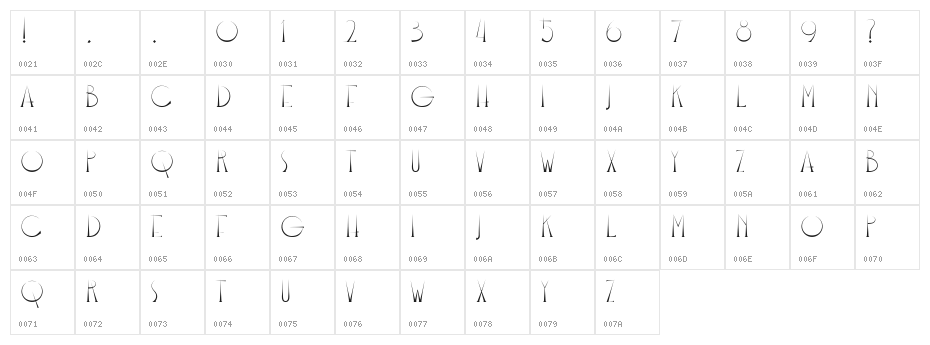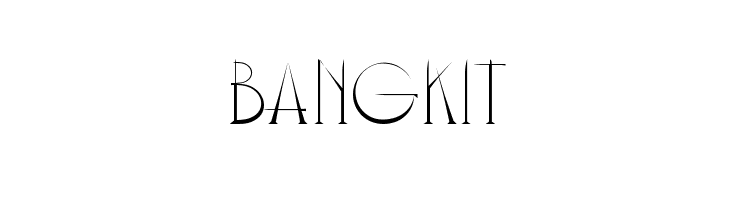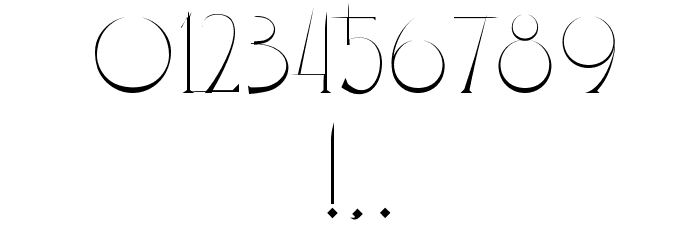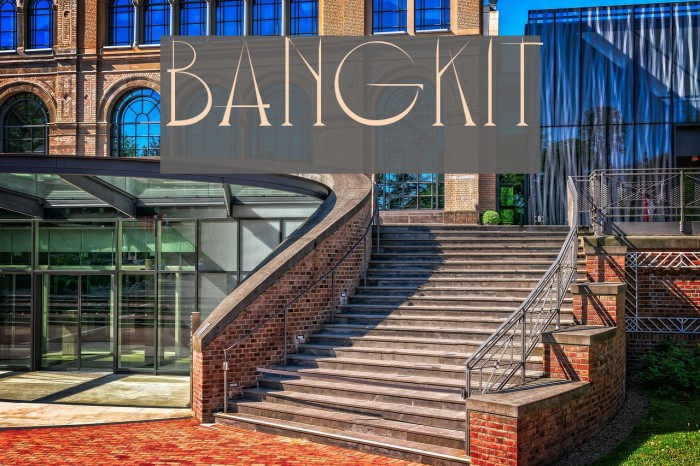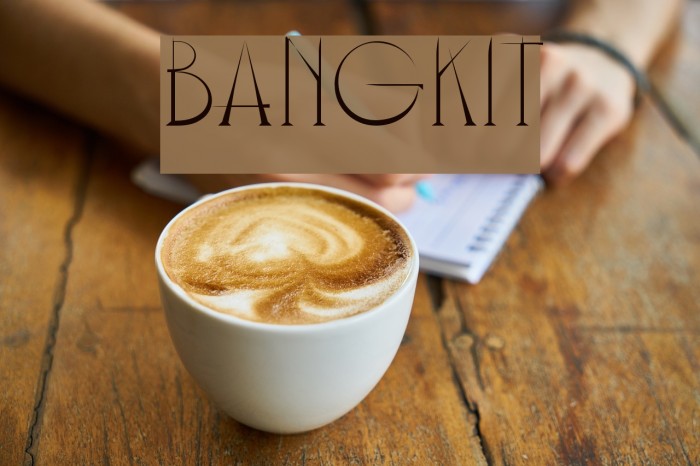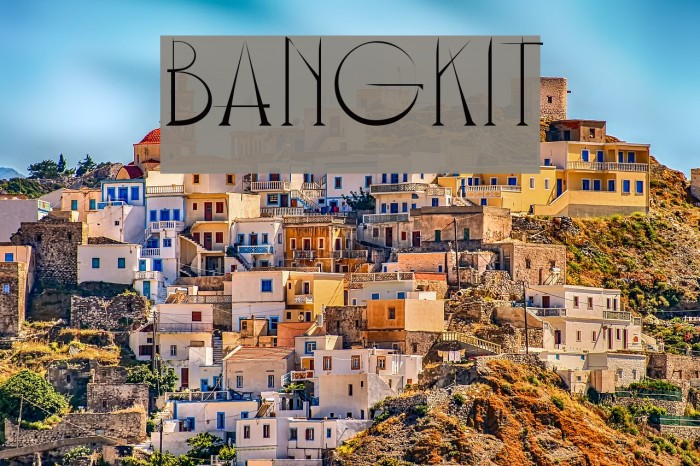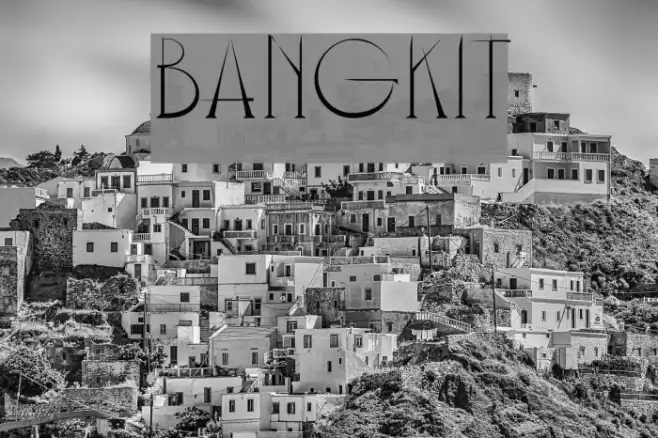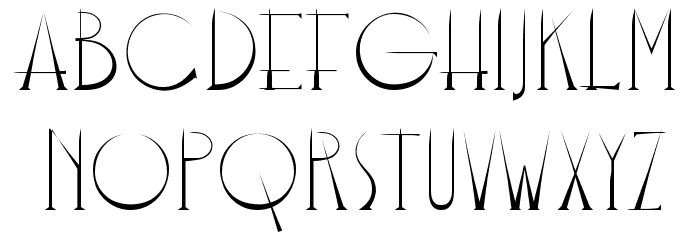
Bangkit Font
Bangkit Description
This font features a unique and artistic design with a modern flair. The characters are elegantly elongated with a mix of thin and thick strokes, creating a high contrast that adds a dramatic effect. The uppercase letters have a distinct geometric style, while the lowercase letters maintain a consistent aesthetic. The numerals are designed to complement the letters, with a similar balance of curves and straight lines. Special characters are included, maintaining the overall style. This font is visually striking and suitable for creative and bold design projects.
| Overall Style | Modern, Artistic |
| Proposed Projects | Ideal for branding, logos, posters, and editorial design where a modern and artistic touch is desired. |